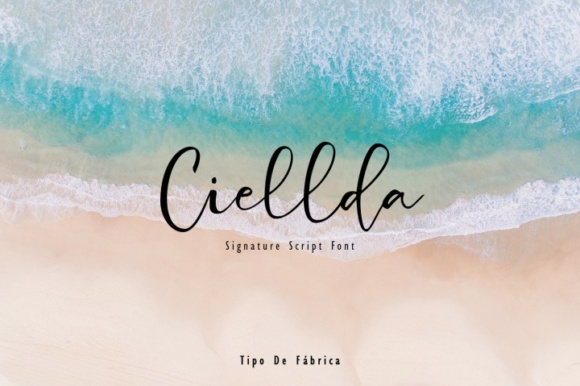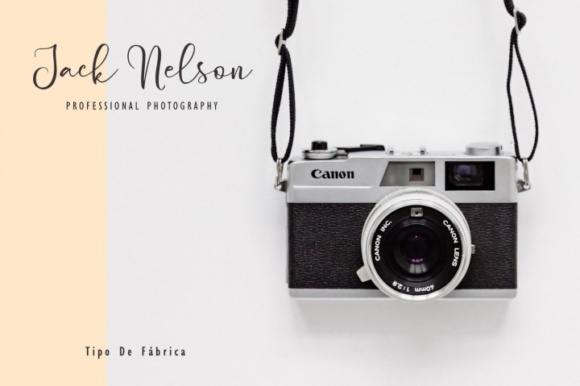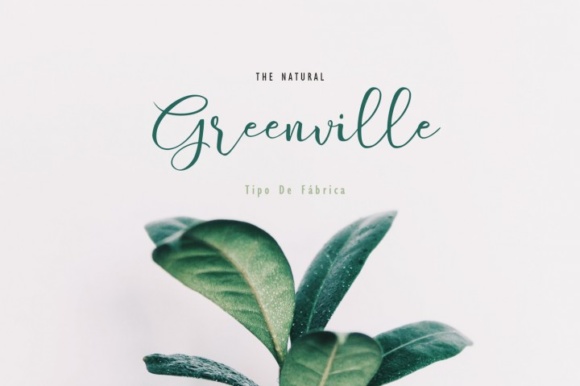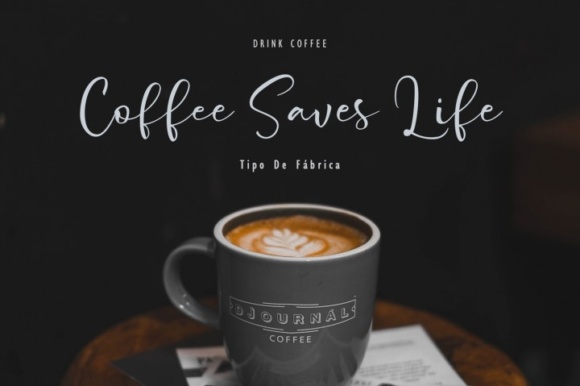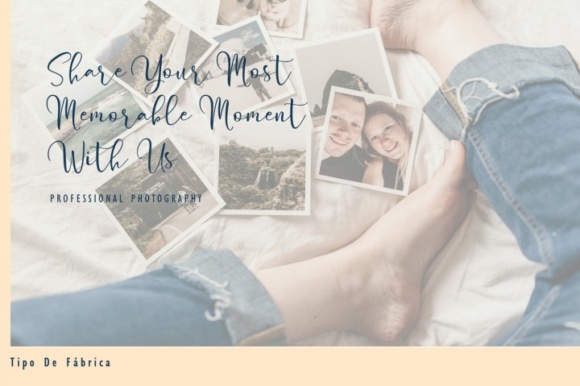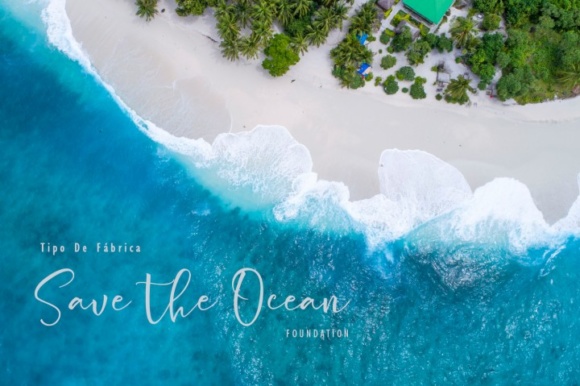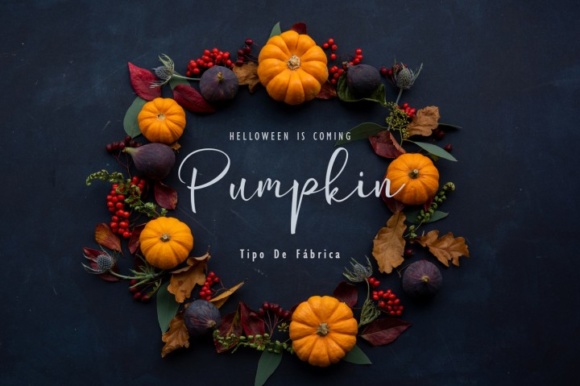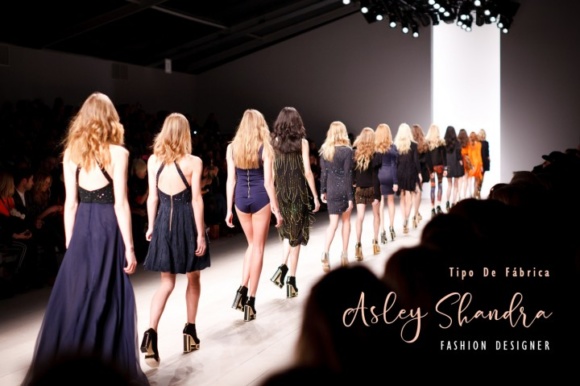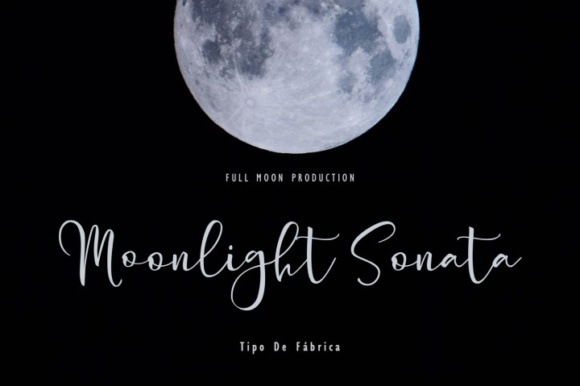
Ciellda Font
About Ciellda Font
The Ciellda is a signature script font. It’s a cute, elegant hand lettering font that fits for wedding projects, fashion designs, photography, branding, and much more!